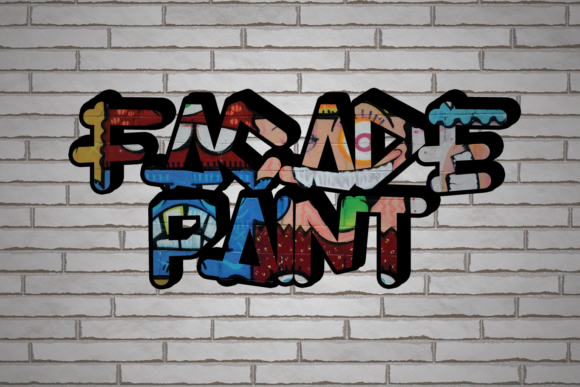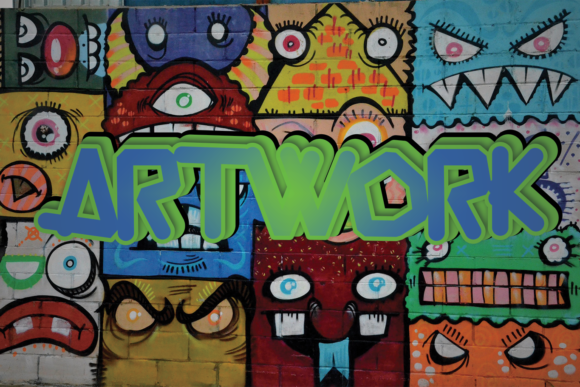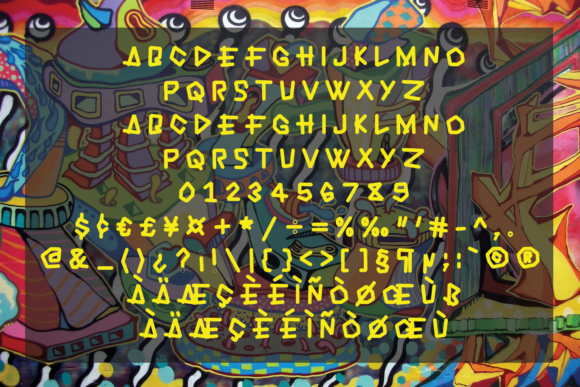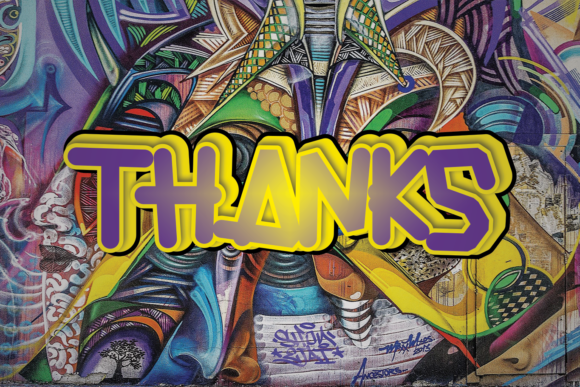
Introduction to Dinamica Font
Imagine strolling through a vibrant street art scene, surrounded by colorful murals and bold typography. The moment a striking graffiti tag catches your eye, and you’re instantly inspired to create something new. This is the spark that ignites the creative process, and for designers, it’s moments like these that fuel our passion.
When it comes to bringing your design ideas to life, having the right tools is crucial. This is where the Dinamica Font comes in – a free download that’s perfect for any creative project. With its friendly, graffiti-styled display font, Dinamica adds a playful touch to designs such as t-shirts, sportswear, logos, and advertisements.
As a valuable design resource, Dinamica Font offers a high-quality, transparent background that’s easy to customize. Whether you’re working on a personal project or a commercial design, this versatile font is sure to elevate your creations and make them stand out.
Key Features of Dinamica Font
- High-quality, professional design for creative projects and design resources
- Comes with a transparent background, allowing for seamless integration with various designs
- Unique, modern design that can add a touch of sophistication to any creative project
Honest Review: Dinamica Font
As a designer, I’m always on the lookout for high-quality design resources to elevate my creative projects. Recently, I stumbled upon the Dinamica Font, which has been a game-changer for my designs. ✨
The Dinamica Font offers a free download, making it an excellent choice for designers on a budget. The transparent background is a nice touch, allowing for seamless integration into any design. I’ve used it for a range of projects, from logos to infographics, and it’s consistently delivered a professional finish.
- Wide range of applications, from logos to presentations
- Some users may find the font too ornate or busy
- The font may not be suitable for small text sizes
Overall, I’m impressed with the Dinamica Font. It’s a versatile design resource that’s sure to elevate any creative project. With its high-quality design and transparent background, it’s a great choice for designers of all levels. ⚠️ Just be mindful of the limitations mentioned above.
Dinamica Font
Dinamica Font is a high-quality, versatile design resource suitable for a variety of creative projects. This free download offers a unique and stylish aesthetic, perfect for adding a touch of sophistication to your designs.
Tips for Getting the Most Out of Dinamica Font
For optimal results, use the Dinamica Font with a transparent background to create a clean and modern look. Experiment with different font sizes, colors, and styles to add depth and visual interest to your designs.
Dinamica Font is perfect for a wide range of creative projects, including:
Graphic design
Web design
Print design
Branding and marketing materials